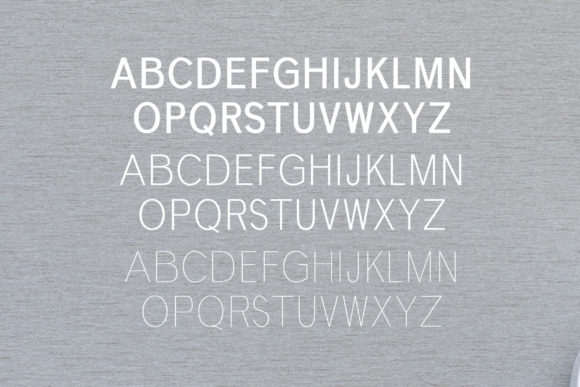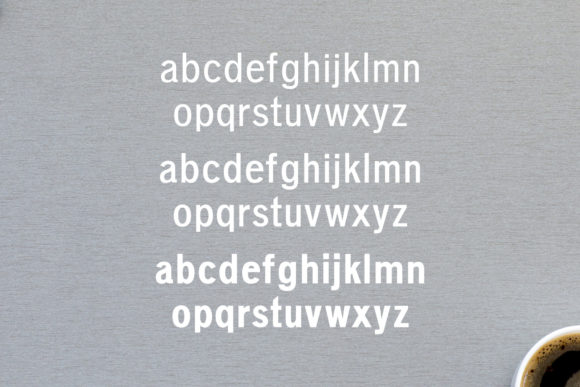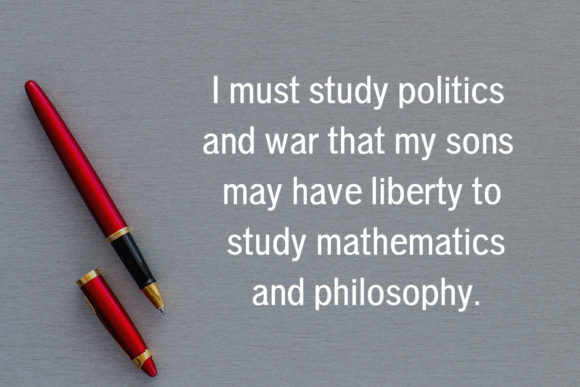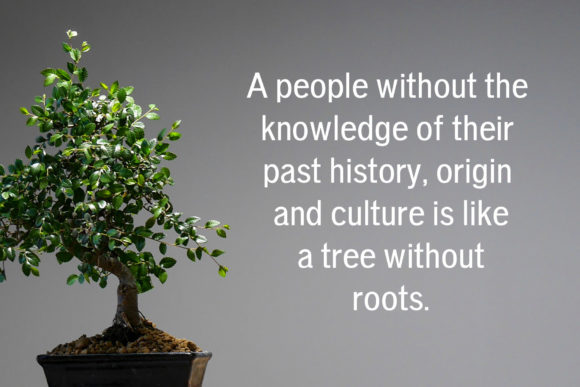
Introducing Deron Family Font: A Modern Geometric Sans Serif for Creative Projects
In the world of typography, a font can make or break a design. For designers and crafters, finding the perfect font that embodies the essence of their project can be a daunting task. However, if you’re looking for a modern and unique geometric sans serif font, look no further than the Deron Family Font. This versatile font family is designed to elevate your typographic applications, making it an excellent choice for branding, banners, templates, catalogs, fashion magazines, and many more.
What is Deron Family Font?
Deron is a geometric sans serif font family that boasts a distinctive and contemporary character set. Its clean lines, precise curves, and geometric shapes create a visually stunning font that is sure to capture attention. The Deron Family Font is crafted to provide a crisp and modern look, making it perfect for projects that demand a fresh and sophisticated aesthetic.
Key Features of Deron Family Font
- Geometric Design: Deron’s geometric design ensures a clean and minimalist look, making it ideal for designs that require a modern and sleek feel.
- Versatility: This font family is highly versatile and can be used across various platforms, including print and digital media.
- Unique Character Set: Deron’s unique character set provides a distinctive look that sets it apart from other sans serif fonts.
- Easy to Read: The font’s clear and precise design ensures excellent readability, making it perfect for body text and headings.
Applications of Deron Family Font
The Deron Family Font is an excellent choice for a wide range of typographic applications, including:
- Branding: Create a lasting impression with Deron’s modern and sleek design, perfect for logos, business cards, and brand guidelines.
- Banners and Posters: Grab attention with Deron’s bold and eye-catching design, ideal for banners, posters, and advertising materials.
- Templates and Catalogs: Add a touch of sophistication to your templates and catalogs with Deron’s clean and geometric design.
- Fashion Magazines: Elevate your fashion magazine designs with Deron’s modern and stylish aesthetic.
Why Choose Deron Family Font?
With so many fonts available, why choose Deron Family Font? Here are a few compelling reasons:
- Unique Design: Deron’s distinctive design sets it apart from other fonts, ensuring your project stands out from the crowd.
- High-Quality: The font is crafted with precision and attention to detail, ensuring a high-quality design that will elevate your project.
In conclusion, the Deron Family Font is an exceptional geometric sans serif font family that offers a unique and modern character set. Its versatility, readability, and aesthetic appeal make it an excellent choice for a wide range of typographic applications. Whether you’re a designer or crafter, Deron Family Font is sure to elevate your project and provide a lasting impression.